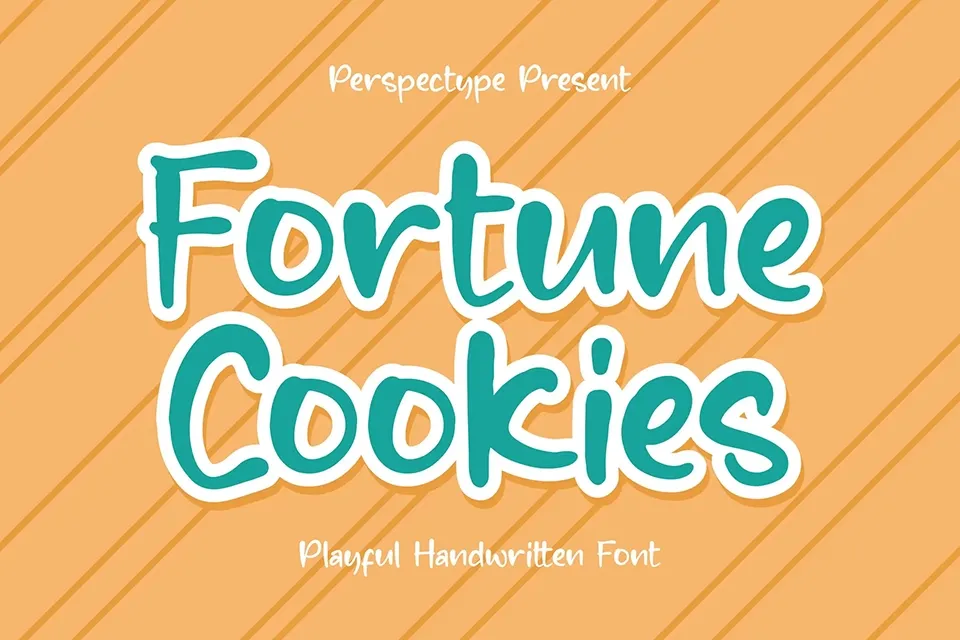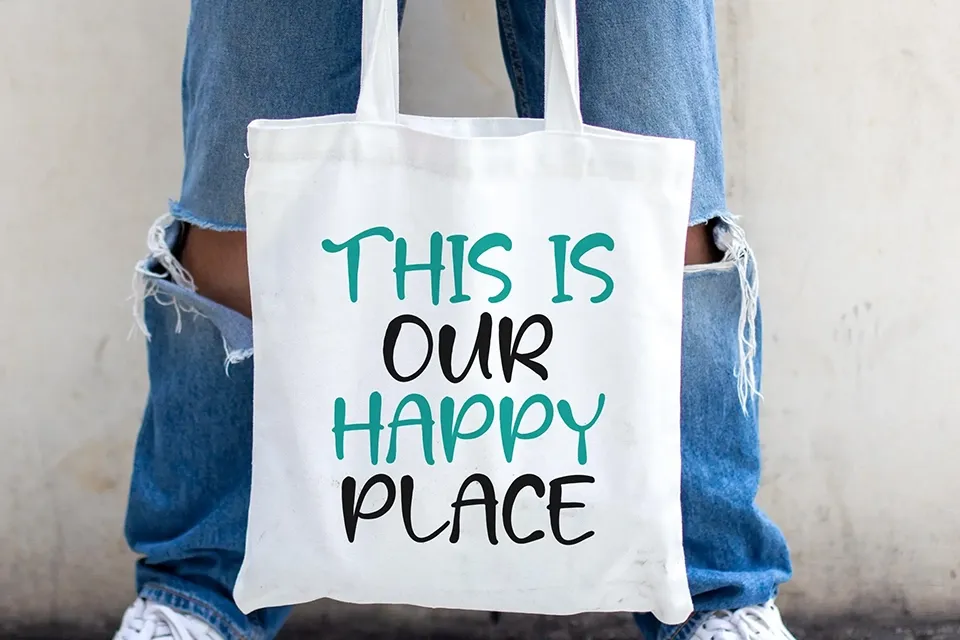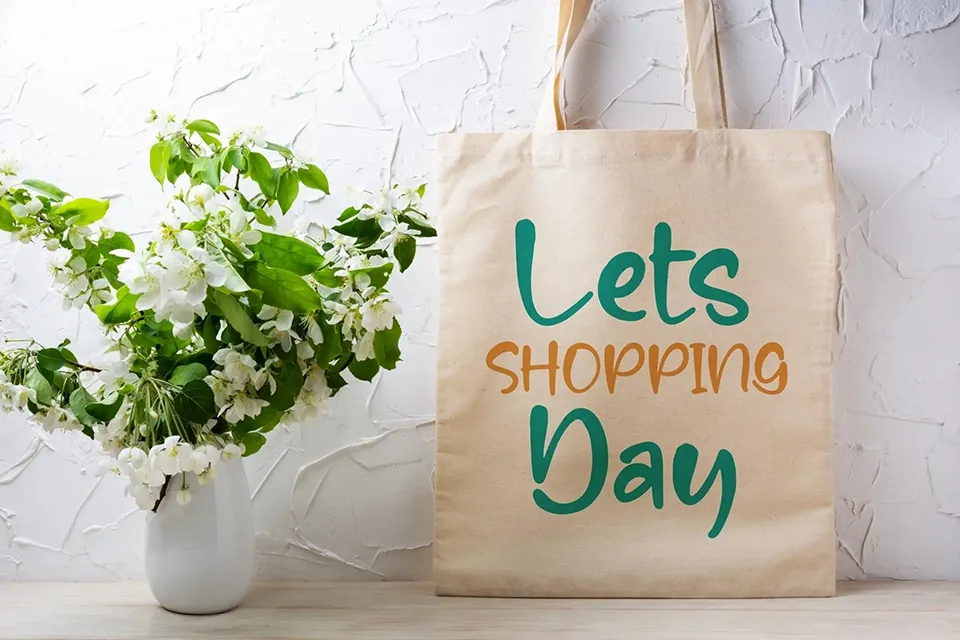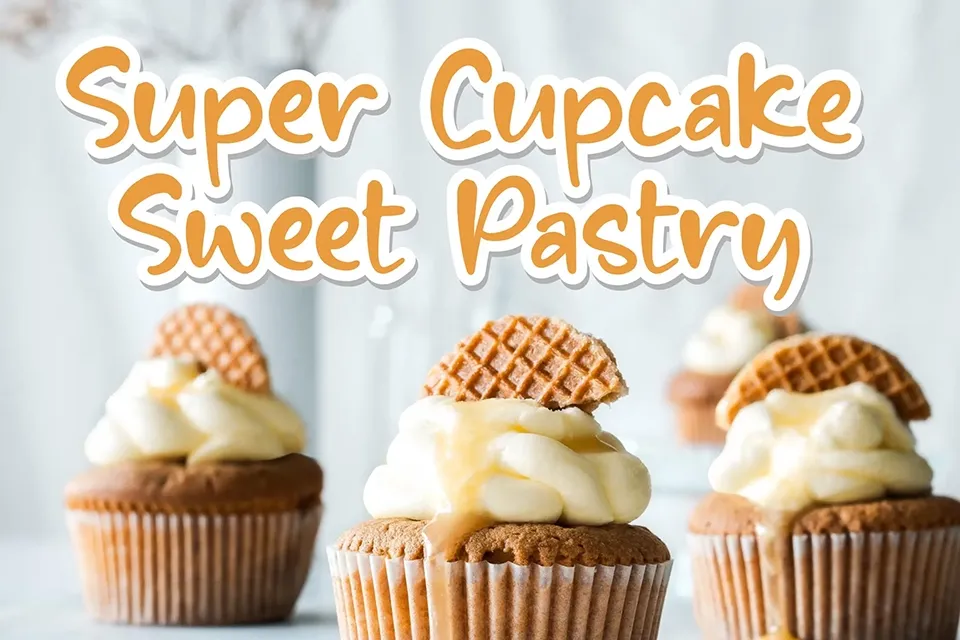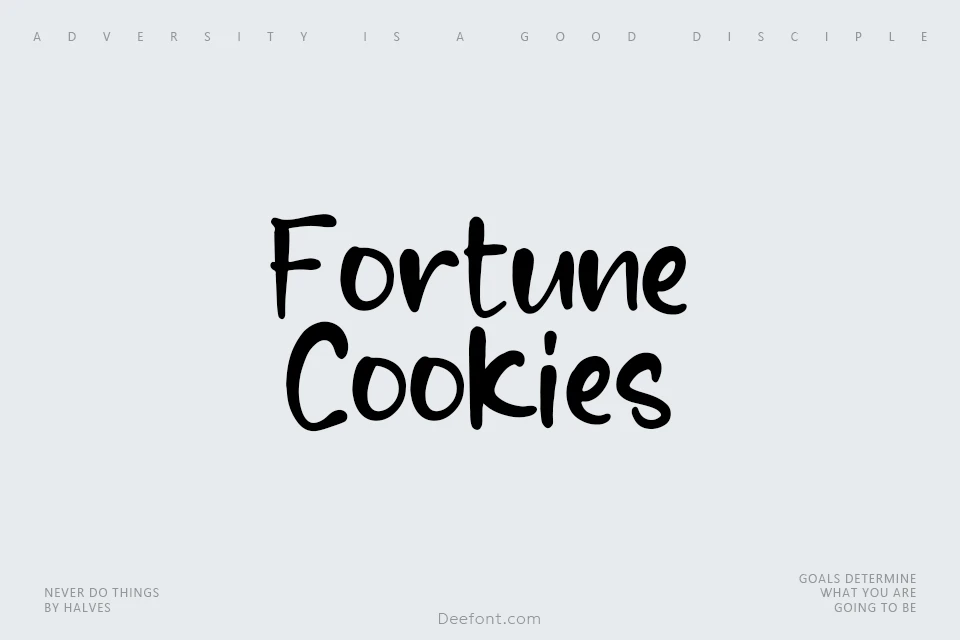
Fortune Cookies Font
Fortune Cookies Font is a playful and cheerful handwritten font that adds a fun, lively touch to your designs. With its smooth, rounded strokes and bold, friendly appearance, this font is perfect for projects that need a whimsical and approachable vibe. Ideal for logos, posters, invitations, children’s designs, and social media graphics, Fortune Cookies brings a sense of joy and creativity to any application. Its versatility ensures it works beautifully across both print and digital platforms. Whether you’re crafting lighthearted branding or playful visuals, Fortune Cookies delivers charm and personality to make your designs truly stand out.